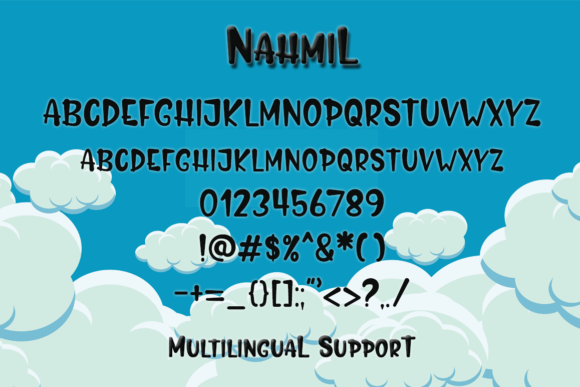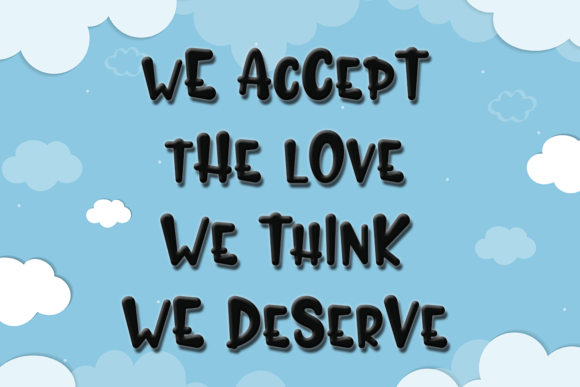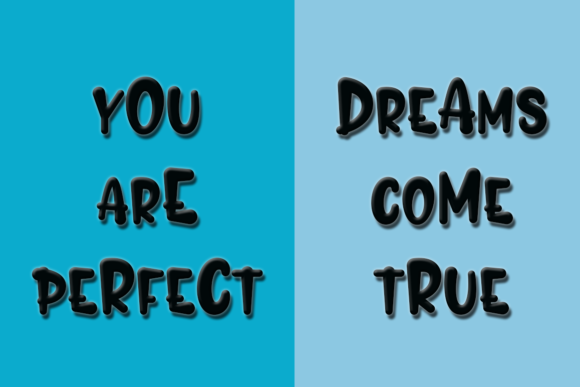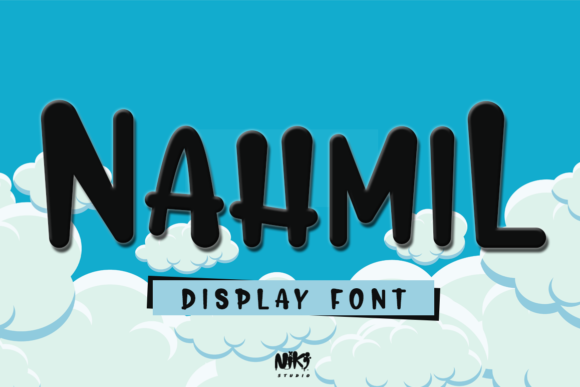
Introduction to Nahmil Font
Nahmil is a fun and trendy display font.
Add this unique and cartoon like font to your most creative ideas and notice how it makes them come alive .